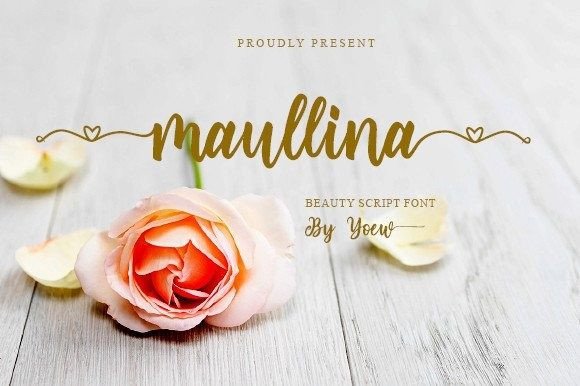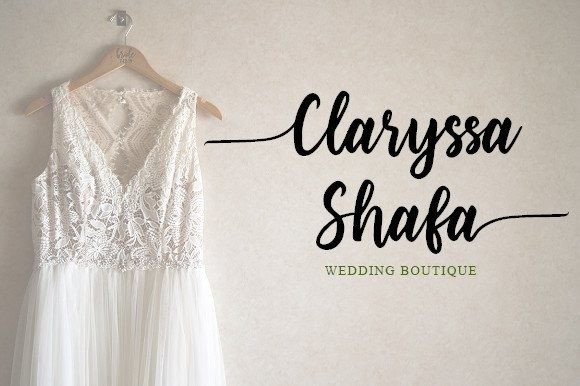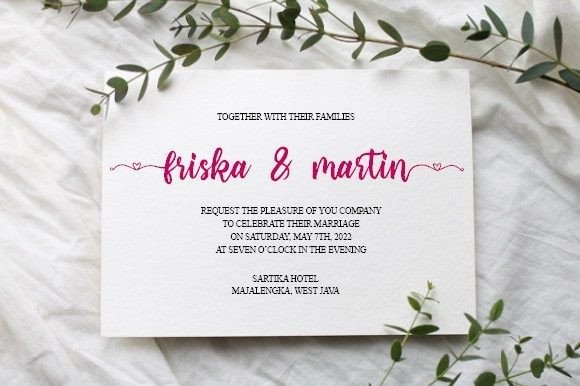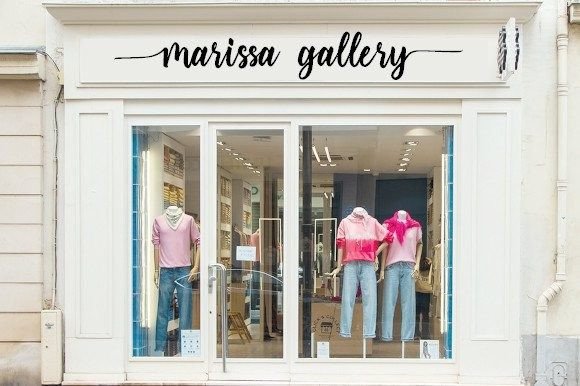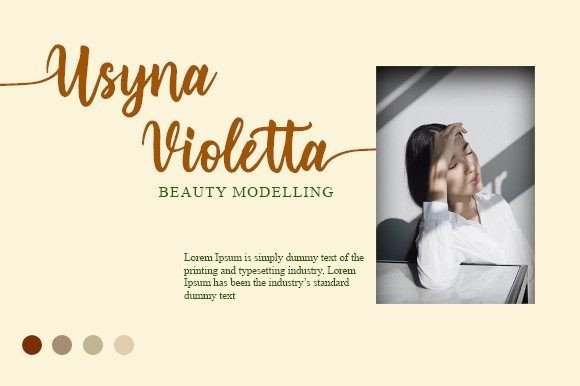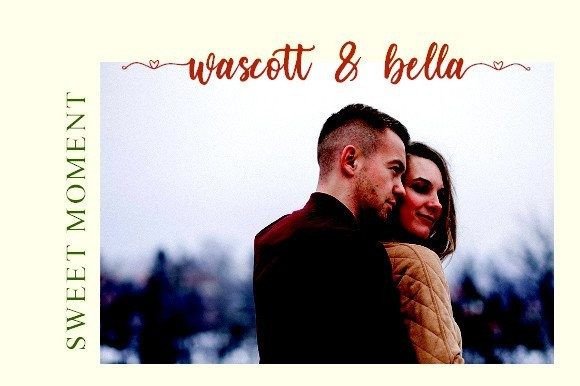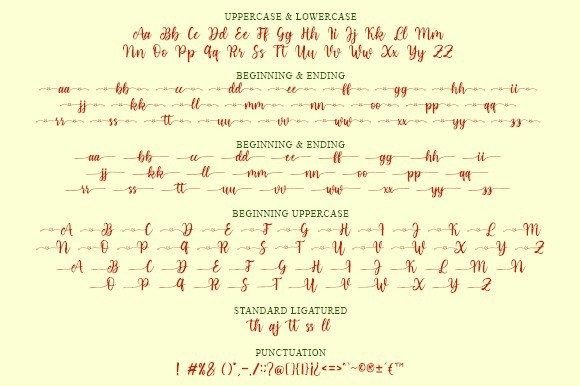
Maullina Font
About Maullina Font
Maullina is a smooth and elegant script font. This font has a lovely touch of character, perfect for a variety of designs. maullina features varied baselines, unique smooth lines, and stunning alternatives. Add to your most creative ideas and see how to create a work of art!